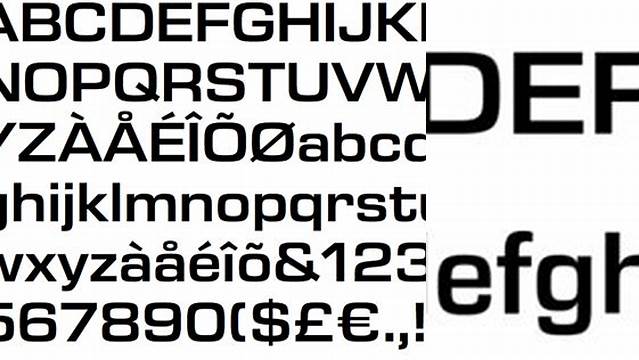
Eurostile Next: Free Font For Modern Designs & Where To Find It
Are you on the hunt for a font that screams modern sophistication while offering exceptional readability? Well, buckle up, guys, because you're about to discover the magic of Eurostile Next Paneuropean Wide Semi Bold! This typeface isn't just another font; it's a powerhouse of design, blending geometric precision with a touch of human warmth. Whether you're crafting a cutting-edge website, designing a sleek logo, or putting together a killer presentation, Eurostile Next Paneuropean Wide Semi Bold is your secret weapon. Let's dive into why this font should be your next design obsession.
Why Eurostile Next Paneuropean Wide Semi Bold Stands Out
In the vast world of typography, finding a font that perfectly balances style and functionality can feel like searching for a needle in a haystack. But fear not! Eurostile Next Paneuropean Wide Semi Bold is here to save the day. Its distinctive character stems from its roots in the classic Eurostile, a font that has been synonymous with futuristic design since the mid-20th century. However, this isn't just a rehash of an old favorite. The "Next" in its name signifies a modern evolution, a refinement that brings the typeface into the 21st century with grace and power. What makes this font so special? Let's break it down:
- Geometric Precision: The foundation of Eurostile Next Paneuropean Wide Semi Bold lies in its geometric forms. Clean lines and consistent shapes create a sense of order and sophistication, making it ideal for conveying a sense of professionalism and precision. Think about the logos of tech companies or the sleek interfaces of modern apps – this is the kind of vibe Eurostile Next exudes.
- Enhanced Readability: While geometric fonts can sometimes sacrifice readability for style, Eurostile Next Paneuropean Wide Semi Bold strikes the perfect balance. The "Wide" in its name is crucial here. The wider letterforms provide ample space within each character, preventing the letters from feeling cramped or crowded. This enhanced readability makes it a fantastic choice for body text, headlines, and everything in between.
- Pan-European Character Set: The "Paneuropean" aspect is another key feature. This means the font includes a vast array of characters, supporting a wide range of European languages. This is a huge advantage for designers working on international projects, ensuring that your message is clear and legible no matter the language.
- Semi Bold Weight: The Semi Bold weight adds a touch of emphasis without being overly aggressive. It's strong enough to stand out in headlines and subheadings, yet versatile enough to be used in body text for a subtle visual impact. This weight strikes a harmonious balance between elegance and impact, making it a true workhorse for any design project.
Unleashing the Power of Eurostile Next Paneuropean Wide Semi Bold in Your Designs
Okay, guys, so you're convinced that Eurostile Next Paneuropean Wide Semi Bold is a fantastic font. But how do you actually use it in your designs? The beauty of this typeface lies in its versatility. It can be a star player in a wide range of applications, from branding and web design to print materials and presentations. Let's explore some specific examples:
Logos and Branding: If you're aiming for a modern, tech-savvy brand identity, Eurostile Next Paneuropean Wide Semi Bold is your go-to font. Its geometric precision conveys a sense of innovation and reliability, while its clean lines ensure readability even at small sizes. Imagine the logo of a cutting-edge software company or a futuristic transportation service – Eurostile Next fits right in.
Web Design: In the digital realm, readability is king. Eurostile Next Paneuropean Wide Semi Bold excels in this area, making it a superb choice for website headlines, body text, and navigation menus. Its wide letterforms and clear shapes ensure that your content is easy on the eyes, even on smaller screens. Plus, its modern aesthetic will give your website a polished and professional look. Think sleek, user-friendly interfaces that guide visitors effortlessly through your content. Using it in website design will enhance the user experience, making the site more engaging and professional.
Print Materials: From brochures and posters to business cards and stationery, Eurostile Next Paneuropean Wide Semi Bold can elevate your print designs to the next level. Its versatility allows it to work equally well in headlines and body text, creating a cohesive and visually appealing layout. Imagine a stylish marketing brochure for a tech conference or a set of sophisticated business cards – Eurostile Next will make a lasting impression. The font’s clarity and boldness ensure that print materials are both legible and visually striking.
Presentations: Want to make your presentations more engaging and impactful? Look no further than Eurostile Next Paneuropean Wide Semi Bold. Its clean and modern aesthetic will help you convey your message with clarity and confidence. Use it for slide titles, headings, and bullet points to create a visually consistent and professional presentation. The font’s readability ensures that your audience can easily follow along, while its bold presence commands attention.
Apps and User Interfaces: In the world of app design, a clean and intuitive user interface (UI) is crucial for user satisfaction. Eurostile Next Paneuropean Wide Semi Bold is an excellent choice for UI elements, such as buttons, labels, and text fields. Its geometric precision and enhanced readability make it easy for users to navigate the app, while its modern aesthetic gives the app a polished and professional feel. The font’s versatility ensures it can be used across various UI components, maintaining a consistent and user-friendly design.
Final Thoughts: Embrace the Power of Eurostile Next Paneuropean Wide Semi Bold
In conclusion, guys, Eurostile Next Paneuropean Wide Semi Bold is more than just a font; it's a design tool that can transform your projects. Its geometric precision, enhanced readability, and Pan-European character set make it a versatile choice for a wide range of applications. Whether you're designing a logo, a website, or a presentation, this font will help you convey your message with clarity and style. So go ahead, embrace the power of Eurostile Next Paneuropean Wide Semi Bold and watch your designs come to life!